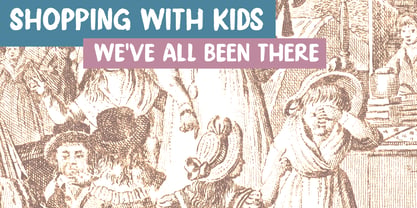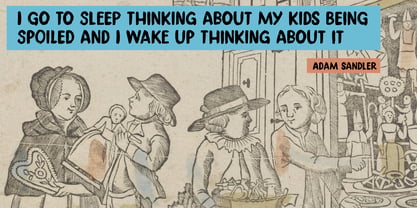
Spoiled Rotten
by Hanoded
The Spoiled Rotten Font Family was designed by David Kerkhoff and published by Hanoded. Spoiled Rotten contains 2 styles and family package options. More about this family
The other day I was thinking about people who are spoiled rotten. It happened right after two prominent figures had a public fall out and behaved like spoiled brats. It was loud, ugly and kind of embarrassing, so I decided to name this loud, possibly ugly, but not quite embarrassing font after it!
Spoiled Rotten was made with ink and a brush and even though it looks rough, its uses can be manifold. Book covers? You bet! Instantly recognisable packaging? Right on! Loud public posters? No problem!
Spoiled Rotten also comes with extensive language support and a gorgeous set of alternates for the lower case glyphs that cycles as you type.
Hanoded is run by Dutchman David Kerkhoff. His fonts are a mishmash of styles, as he just creates whatever pops into his head. You will find a lot of brush fonts in his collection, as his favourite tools are brushes and Chinese ink, with cartoon style fonts and script fonts complementing his repertoire. Aside from making fonts, David occasionally guides tours in far-flung places, renovates his '30's house and tries reasoning with his wife and (teenage) kids. Not an easy task!